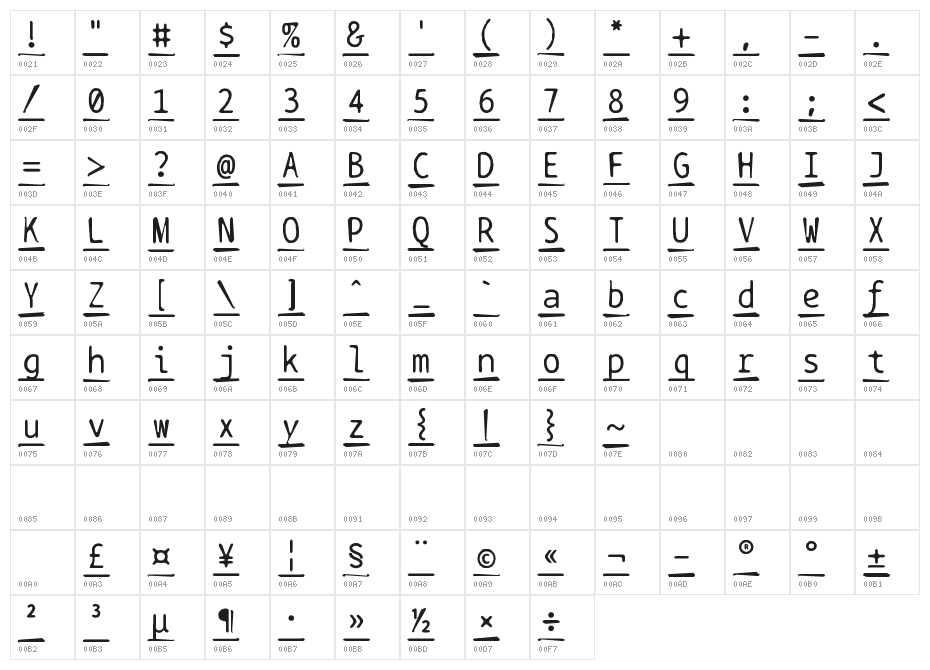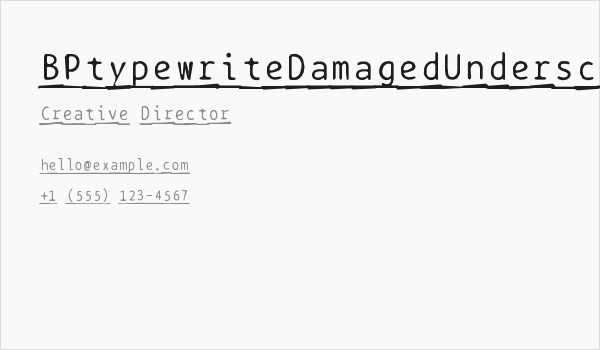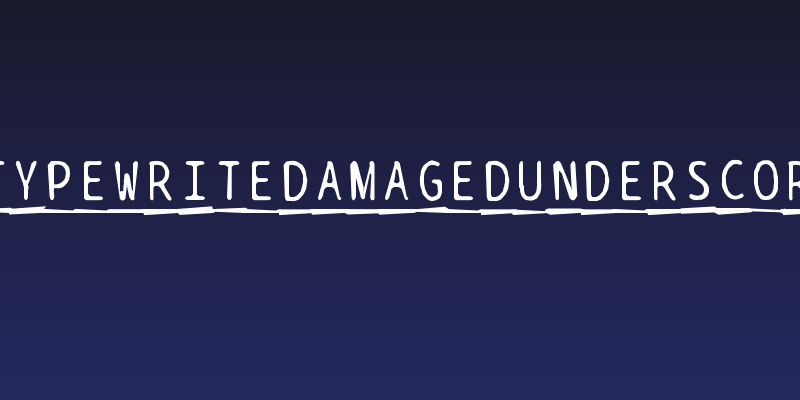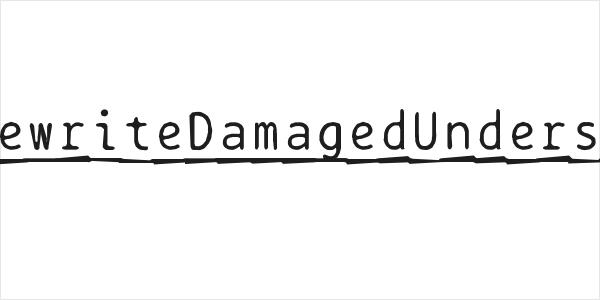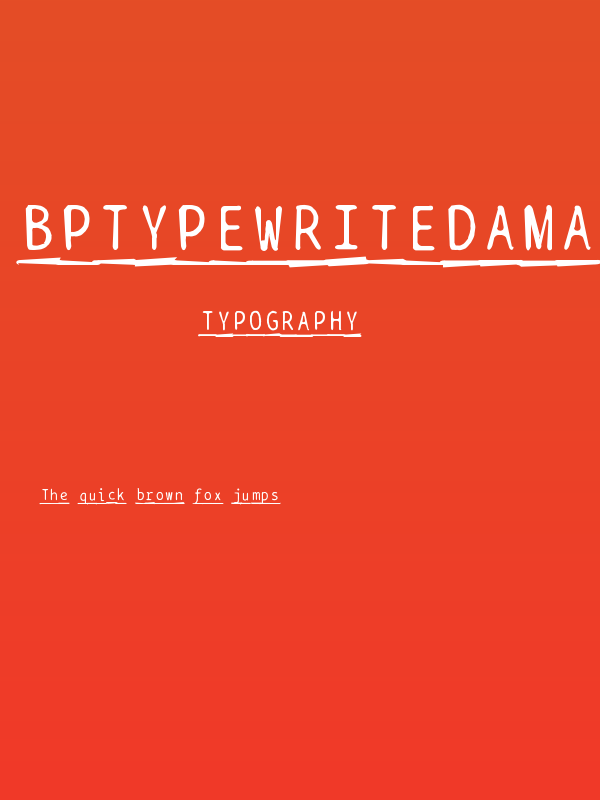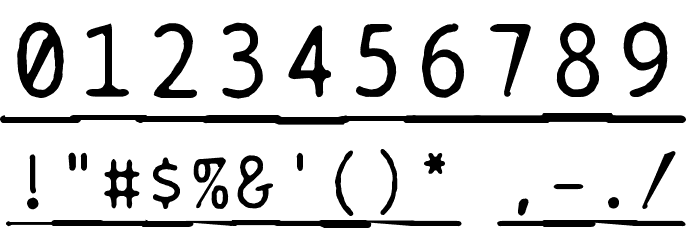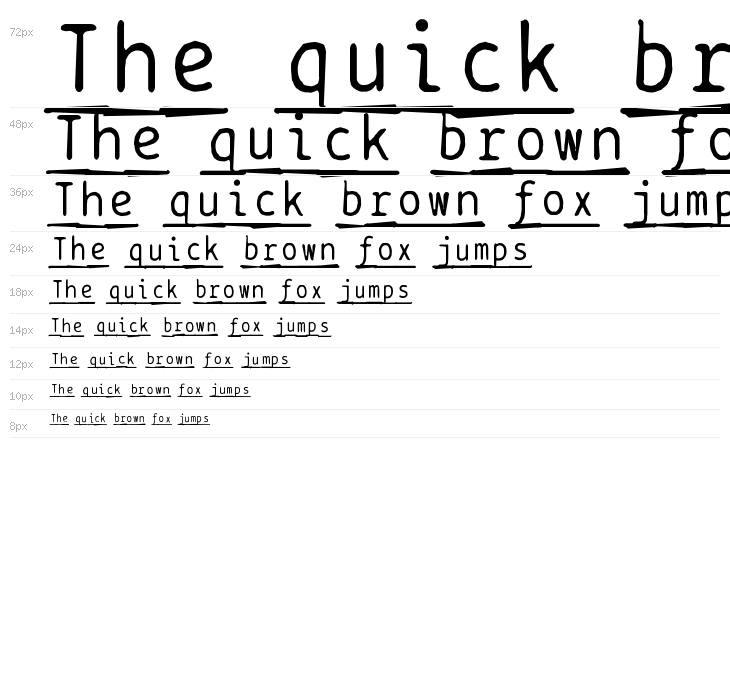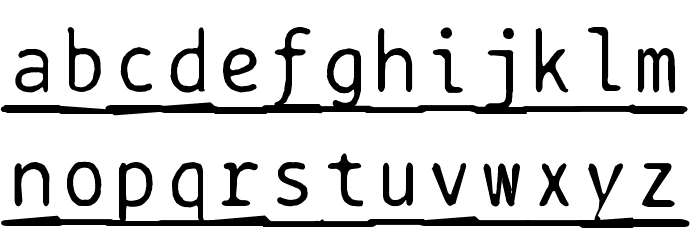
BPtypewriteDamagedUnderscored Font
This font features a typewriter-inspired design with a distressed and uneven appearance, giving it a vintage and worn-out look. The characters are underscored, adding a unique touch to the overall style. The uppercase and lowercase letters maintain a consistent width, while the numbers and special characters follow the same aesthetic. The strokes are slightly irregular, enhancing the typewriter effect, and the overall spacing between characters is normal, allowing for readability while maintaining its distinctive style.
| Proposed Projects | Ideal for retro-themed designs, vintage posters, typewriter-inspired projects, and creative branding. |